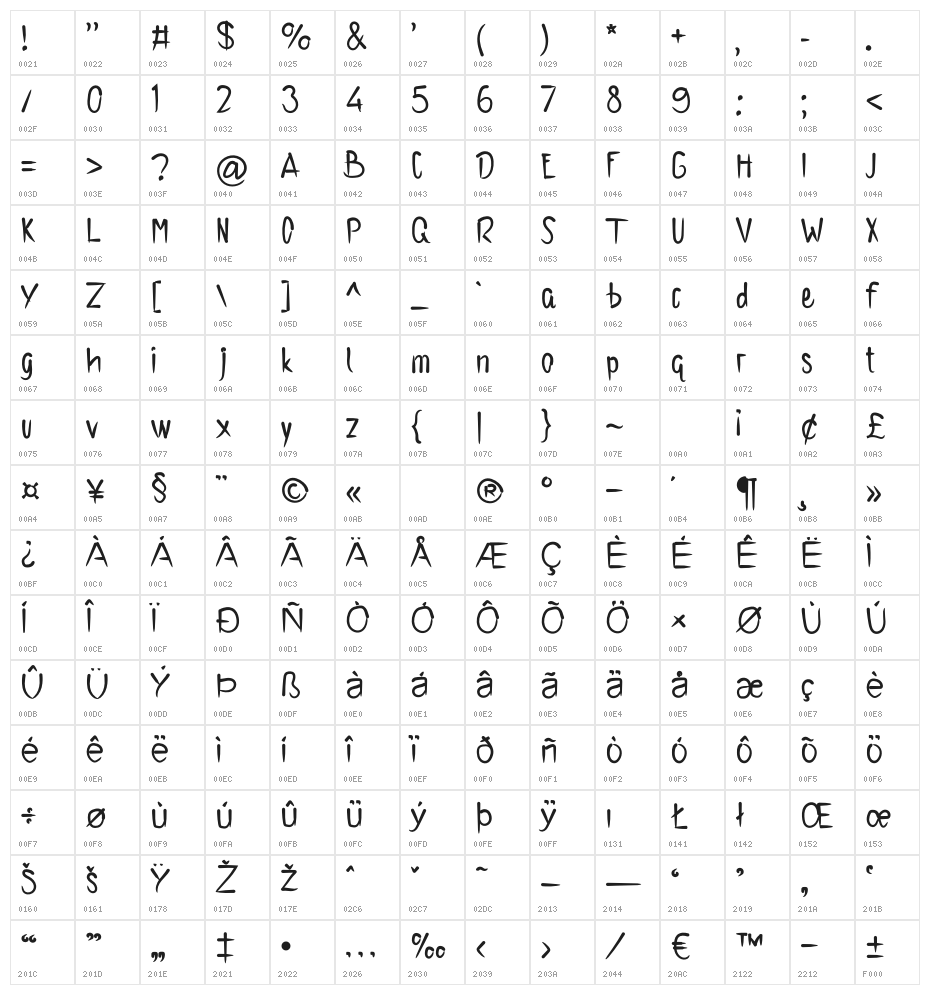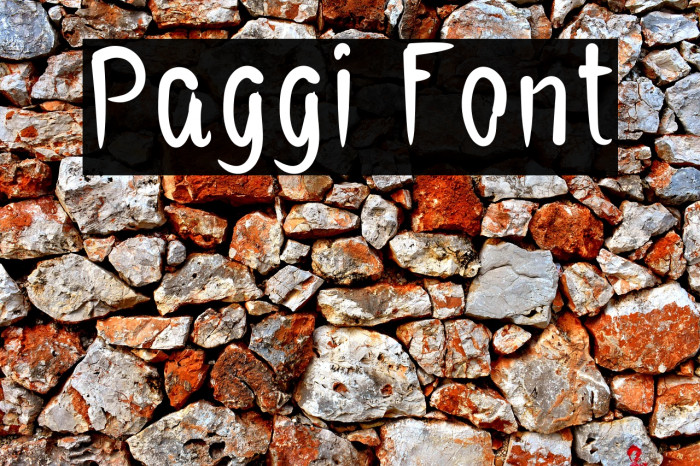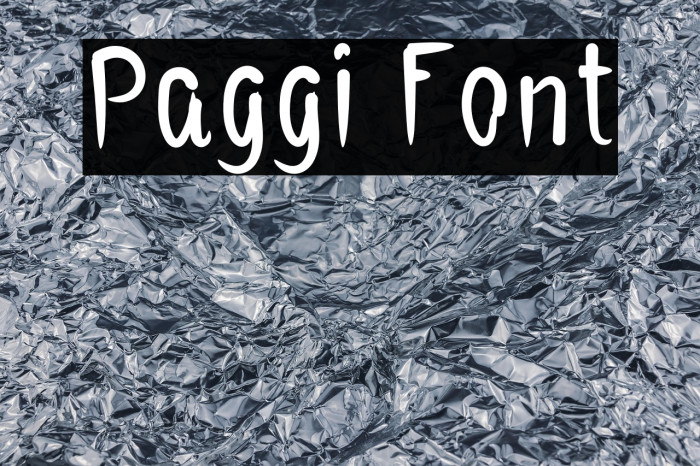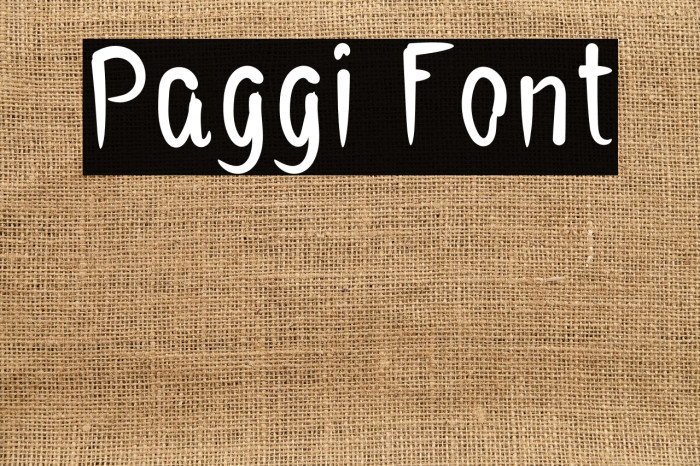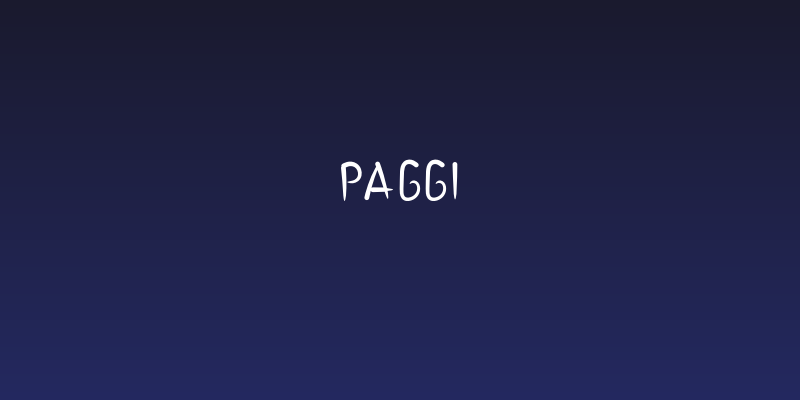
Paggi Font
Paggi Description
A playful, handwritten font with a casual and friendly appearance. The letters have a slightly uneven baseline, adding to the informal style.
| Use Case | Headlines, Informal text |
| Proposed Projects | Greeting cards, children's books, informal invitations. |